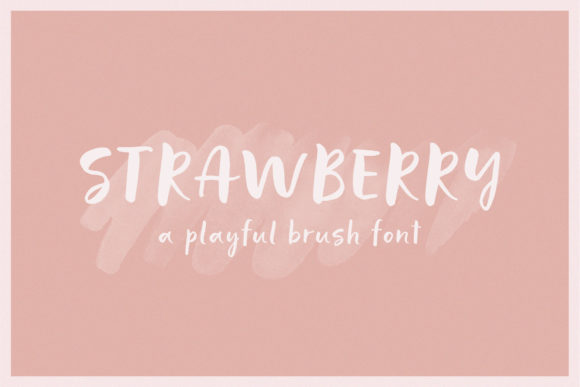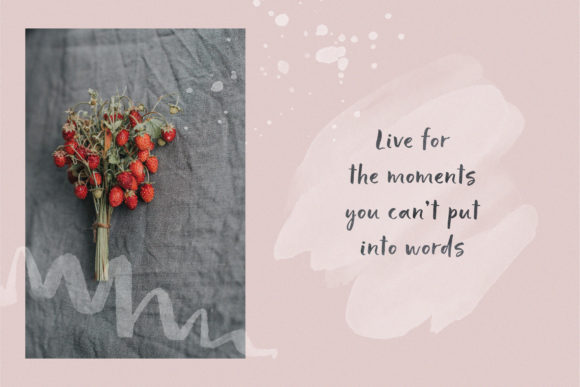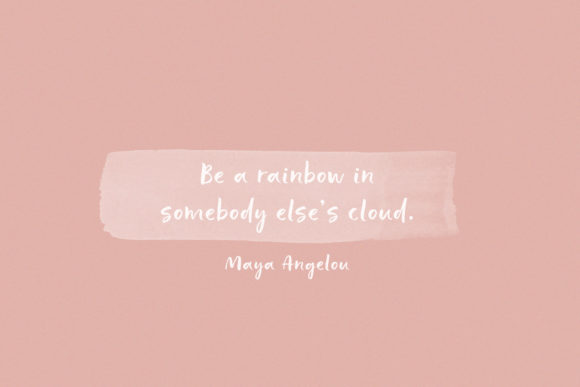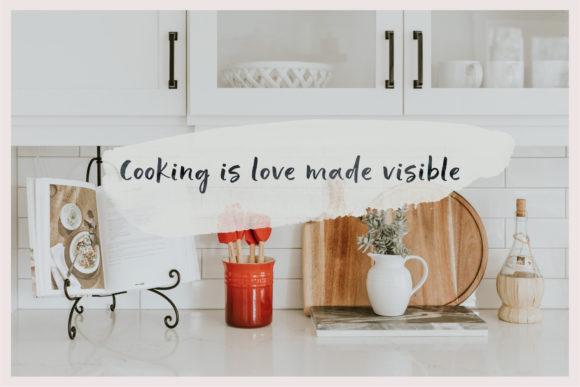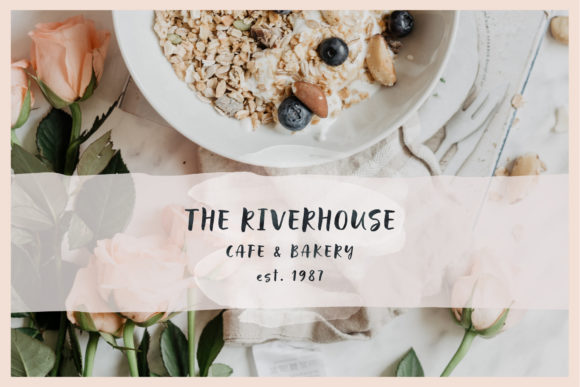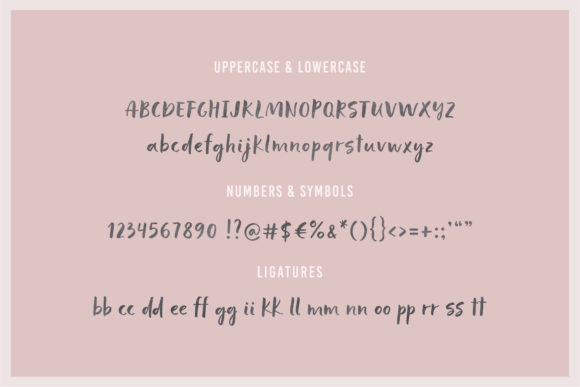
Strawberry Font
About Strawberry Font
Introducing “Strawberry,” a relaxed and playful handwritten font that radiates charm and joy. Its delightful beauty makes it a perfect fit for a wide range of design projects, adding a touch of handcrafted whimsy to every creation. Prepare to be captivated by its versatile style and watch as it becomes your go-to font for crafting gorgeous wedding invitations, beautiful stationary art, eye-catching social media posts, and so much more!
With “Strawberry,” you have a font that brings a sense of ease and playfulness to your designs. Its handwritten charm exudes authenticity, creating a delightful visual experience. Whether you’re working on wedding materials, branding, or social media graphics, this font adds an air of cheerfulness that leaves a lasting impression.
The versatility of “Strawberry” allows it to seamlessly complement different design styles and themes. Its relaxed and playful appeal makes it suitable for various projects, making it the perfect choice for all your creative endeavors.
Unleash your creativity and watch how “Strawberry” enhances your designs with its beautiful and joyful touch. Whether you’re crafting heartfelt invitations, creating captivating artworks, or designing fun social media posts, this font will bring a sense of beauty and authenticity that captivates your audience.
So, fall in love with the charm of “Strawberry” and let it become your creative ally. Allow its relaxed and playful style to inspire your designs, turning them into stunning works of art. Whether you’re a seasoned designer or a passionate enthusiast, “Strawberry” empowers you to create visuals that stand out and make a statement. Let “Strawberry” be the key to unlocking the whimsy and joy in your designs, and watch as it takes your projects to new heights of creativity and delight!